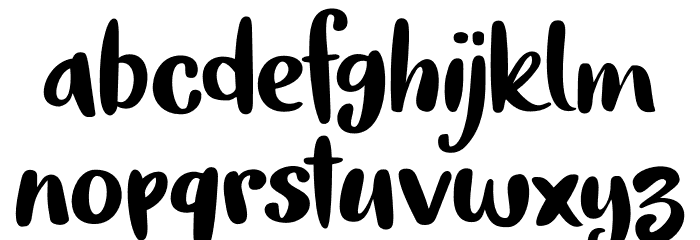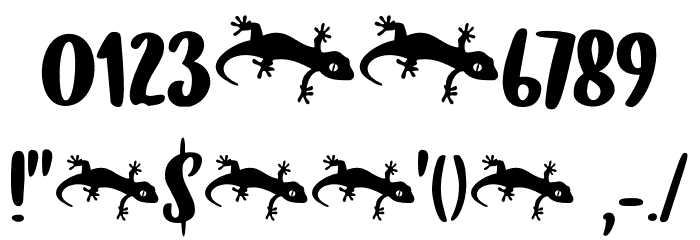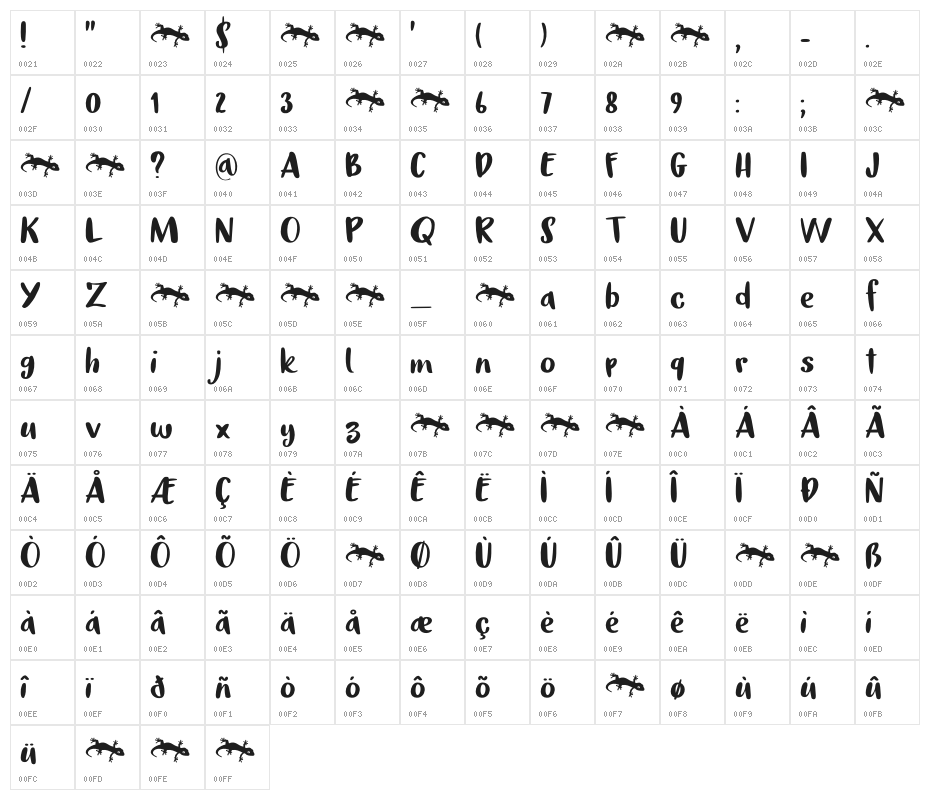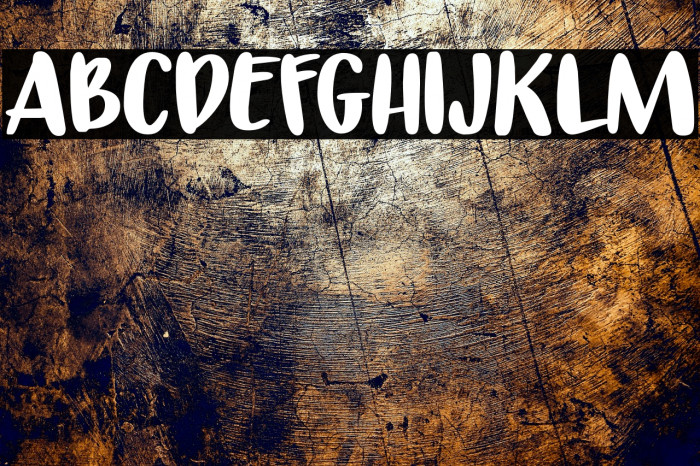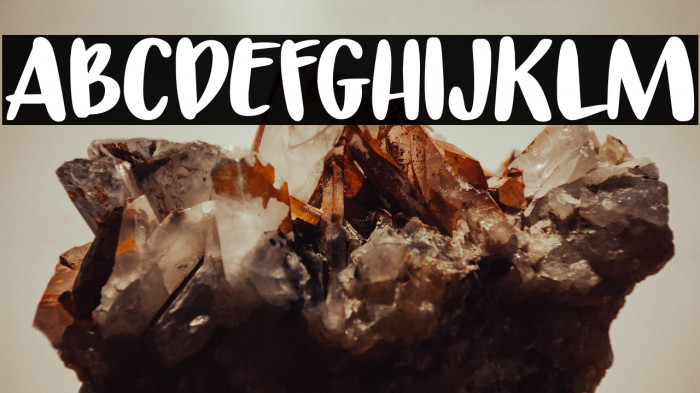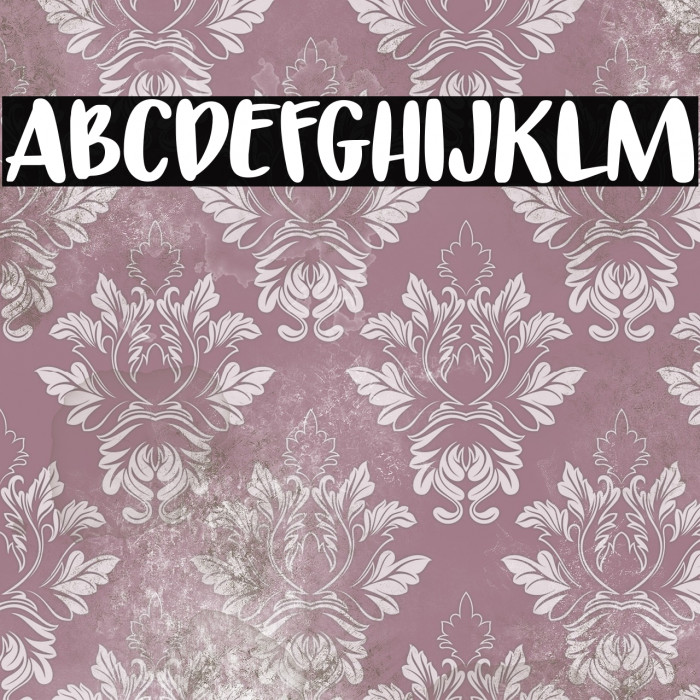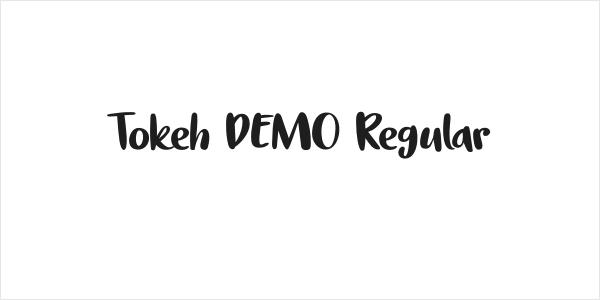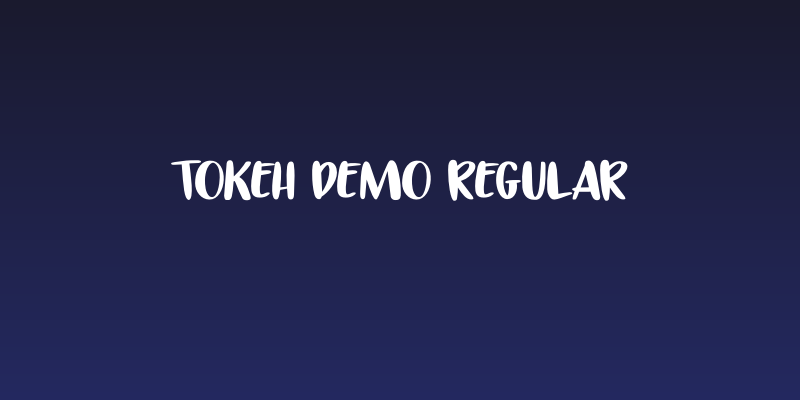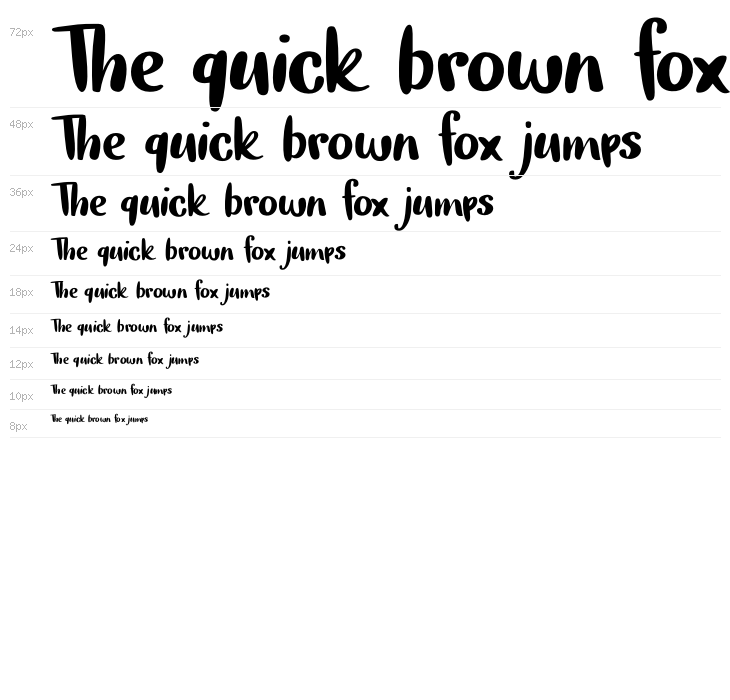
Tokeh DEMO Regular Font
This playful and bold font features a handwritten style with a lively and energetic appearance. The characters are rounded and slightly irregular, giving it a casual and friendly feel. The uppercase and lowercase letters maintain a consistent style, with a slight slant that adds to its dynamic nature. The numbers and special characters are equally expressive, with unique elements like the lizard symbol adding a whimsical touch. This font is perfect for projects that require a fun and informal vibe, making it ideal for children's books, playful branding, or creative posters.
- Font: Tokeh DEMO Regular
- Proposed Projects: Children's books, playful branding, creative posters, informal invitations.
- Category: Handwritten
- Overall Style: Playful
- Use Case: Logos, Posters, Informal Texts